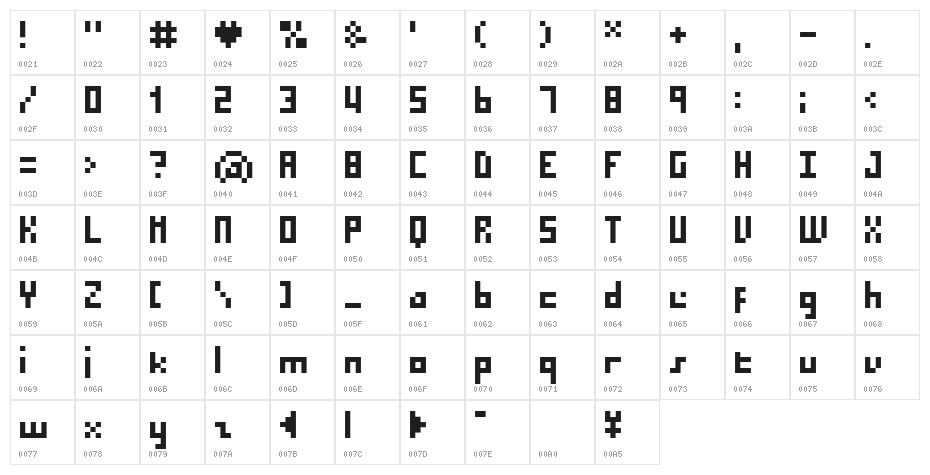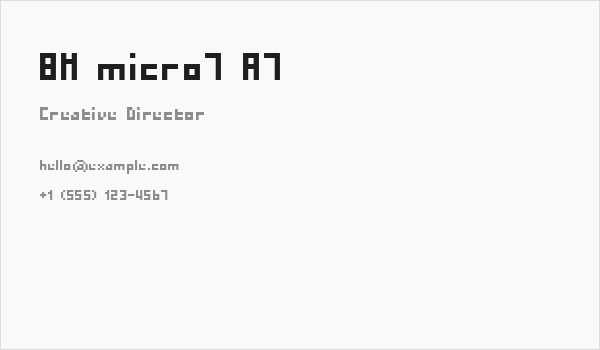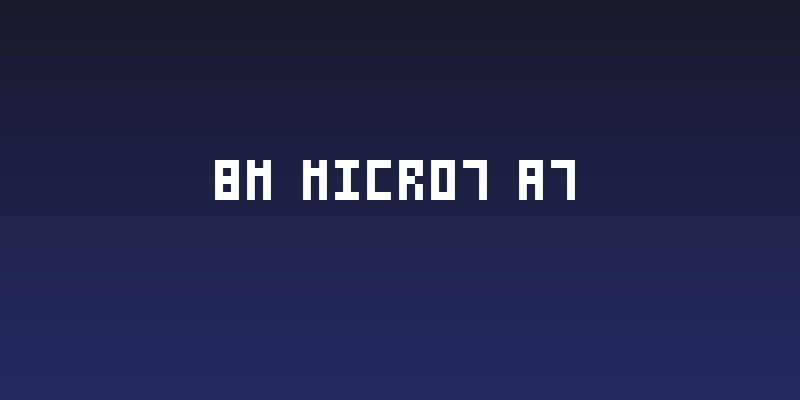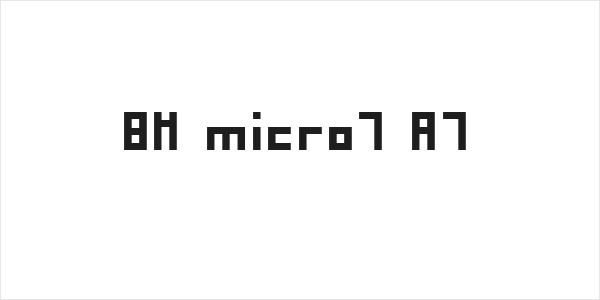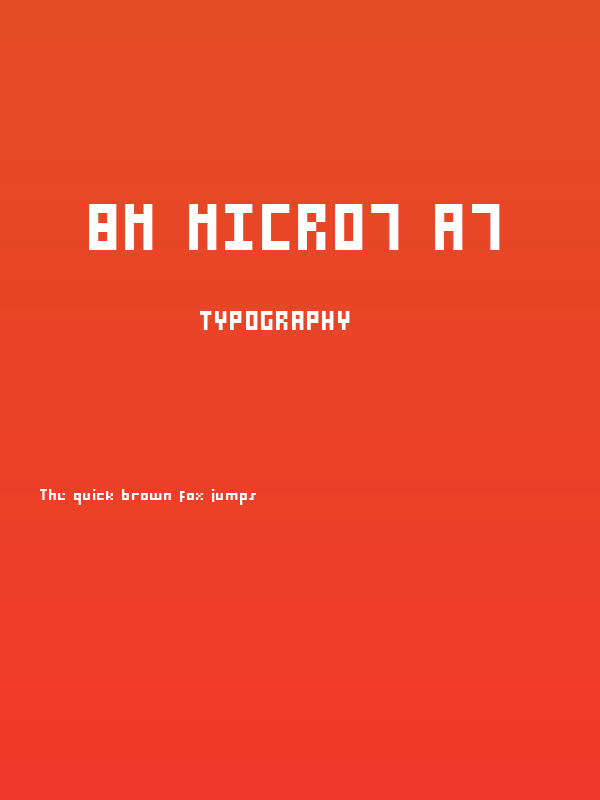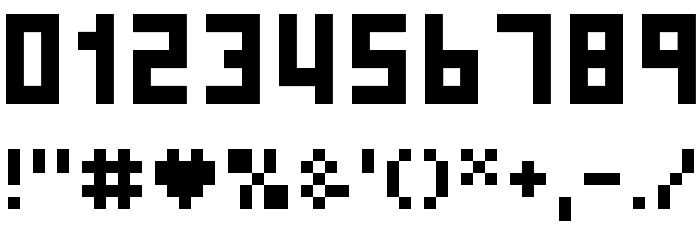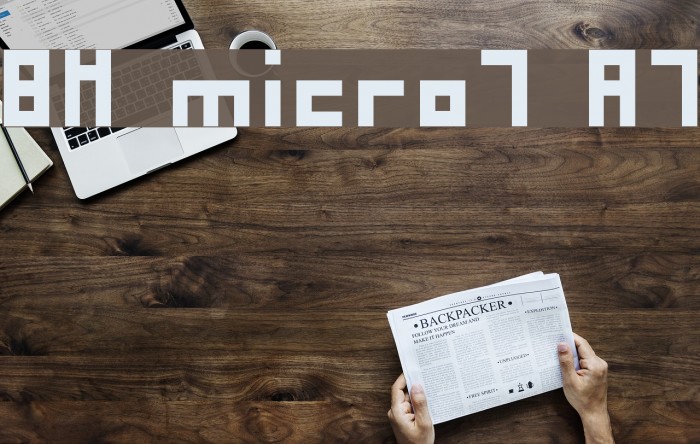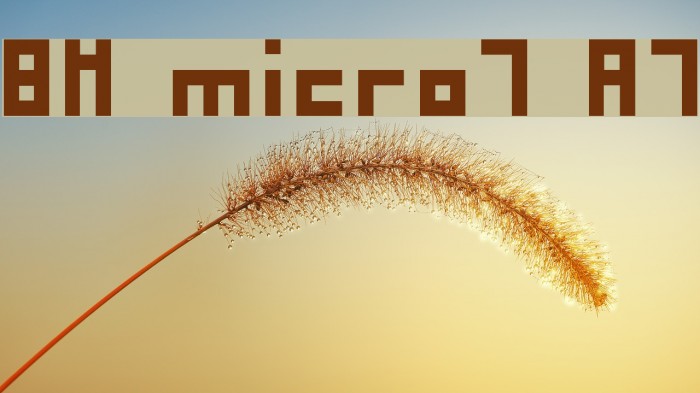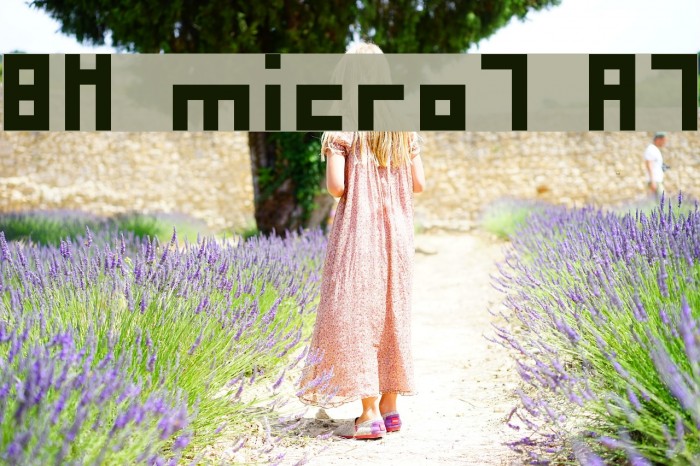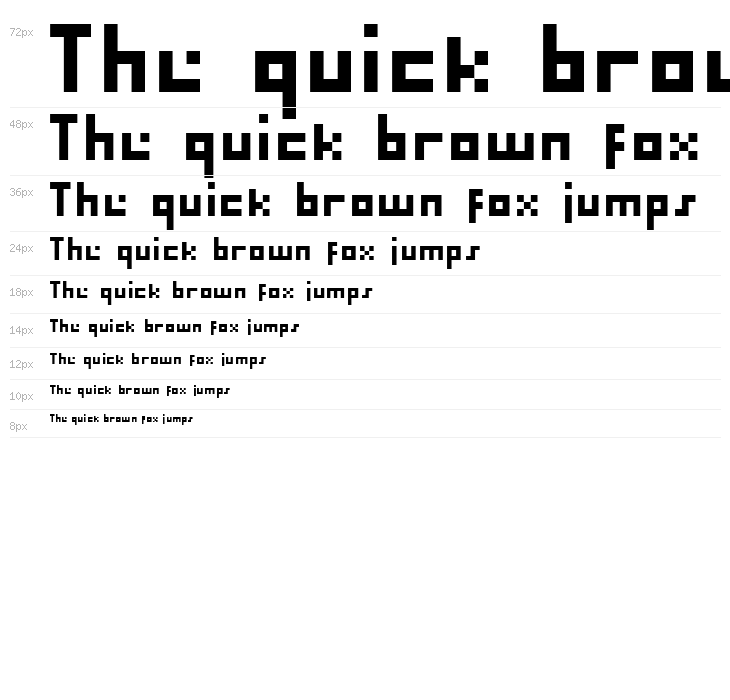
BM micro7 A7 Font
BM micro7 A7 Description
This font features a bold, geometric design with a distinctly pixelated appearance, reminiscent of early digital displays or retro video games. Each character is constructed with uniform square blocks, giving it a highly structured and mechanical feel. The uppercase and lowercase letters maintain a consistent height, enhancing the uniformity and grid-like nature of the typeface. Numbers and special characters follow the same blocky aesthetic, ensuring a cohesive look across all glyphs. The font's simplicity and clarity make it ideal for digital applications where readability at small sizes is crucial.
BM-MICRO7-A7 UPPERCASE
BM-MICRO7-A7 LOWERCASE
BM-MICRO7-A7 OTHER CHARS
| Use Case | Logos, Headlines, Digital displays |
| Proposed Projects | Perfect for retro video game designs, digital art projects, tech-themed posters, or any creative work requiring a nostalgic digital aesthetic. |